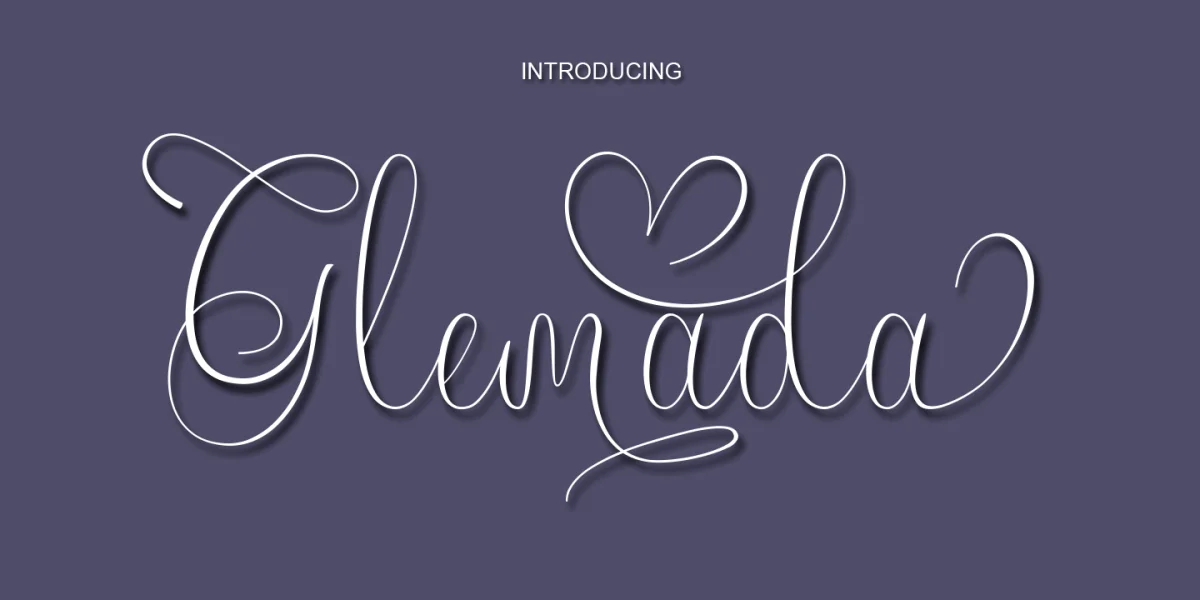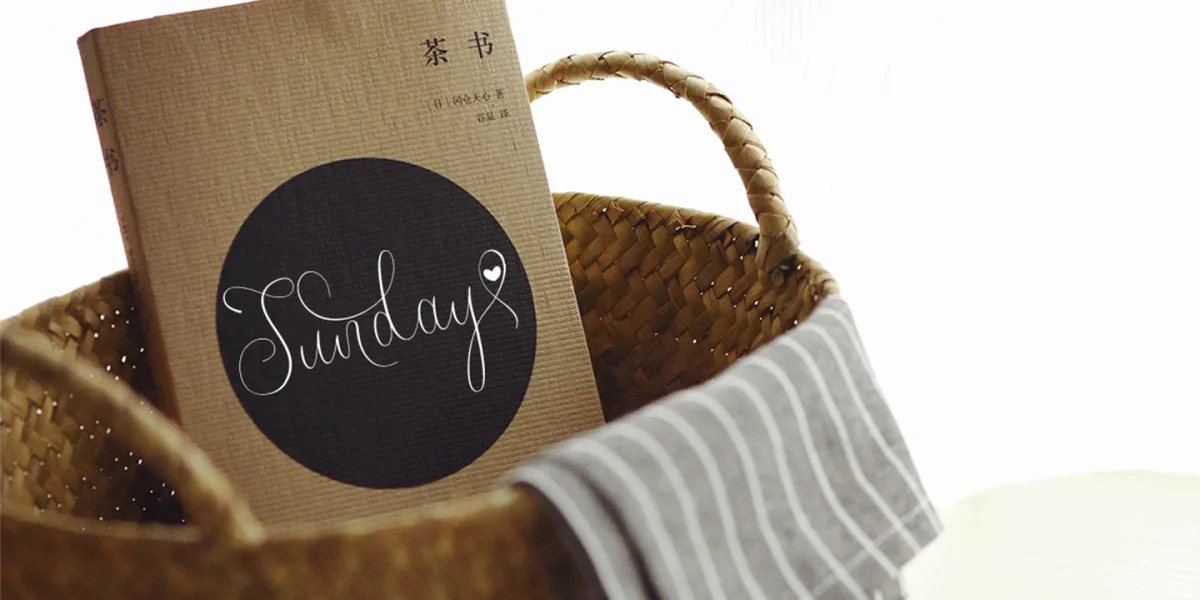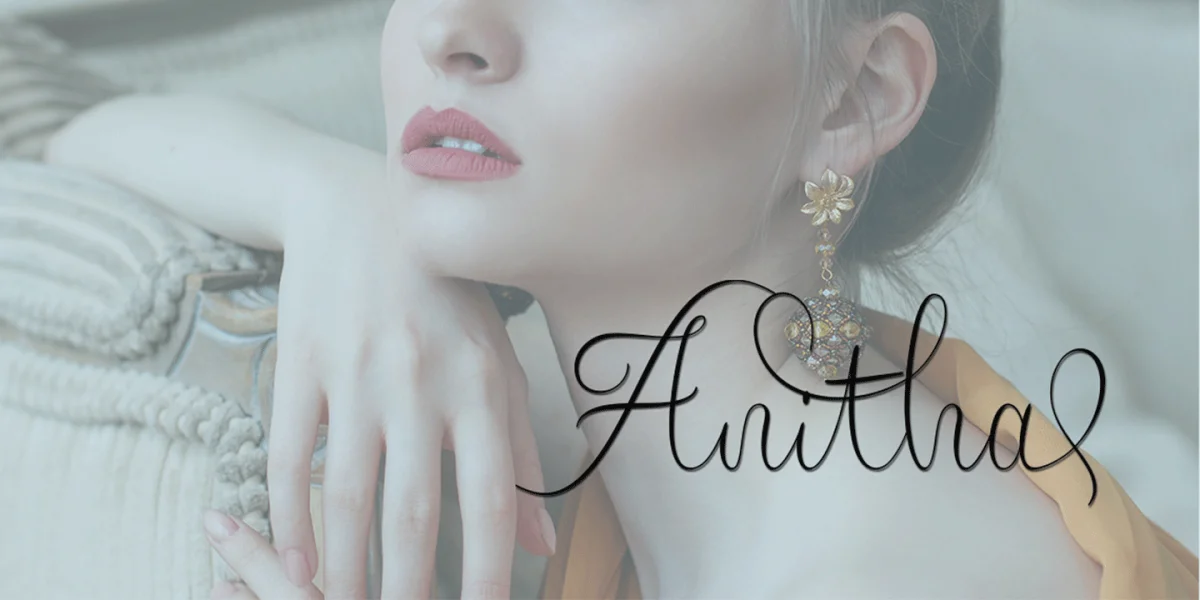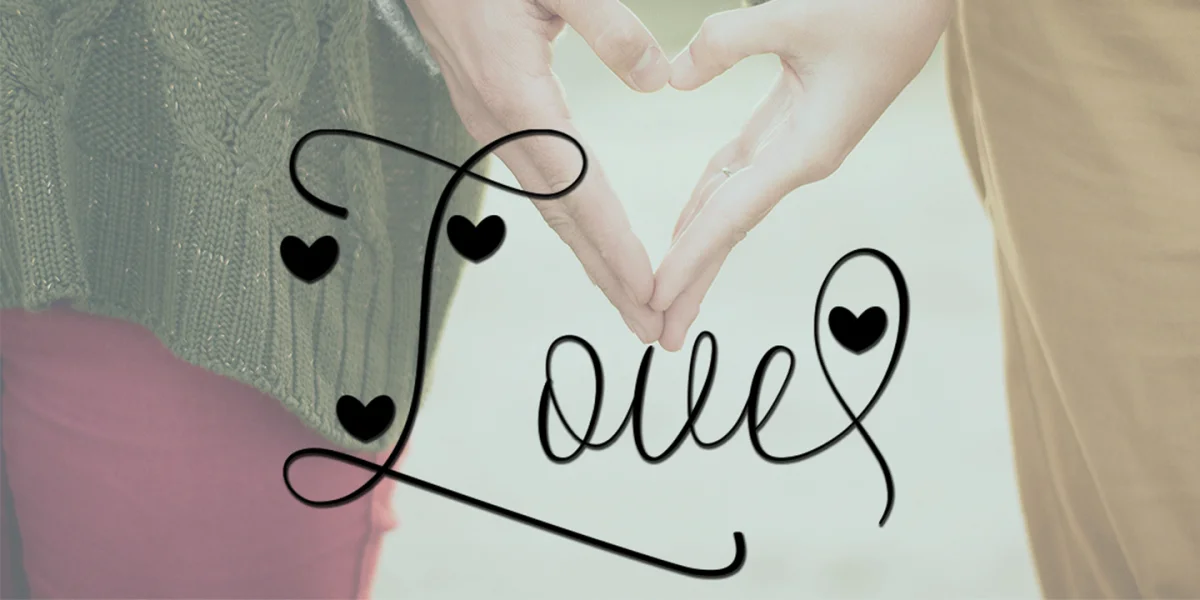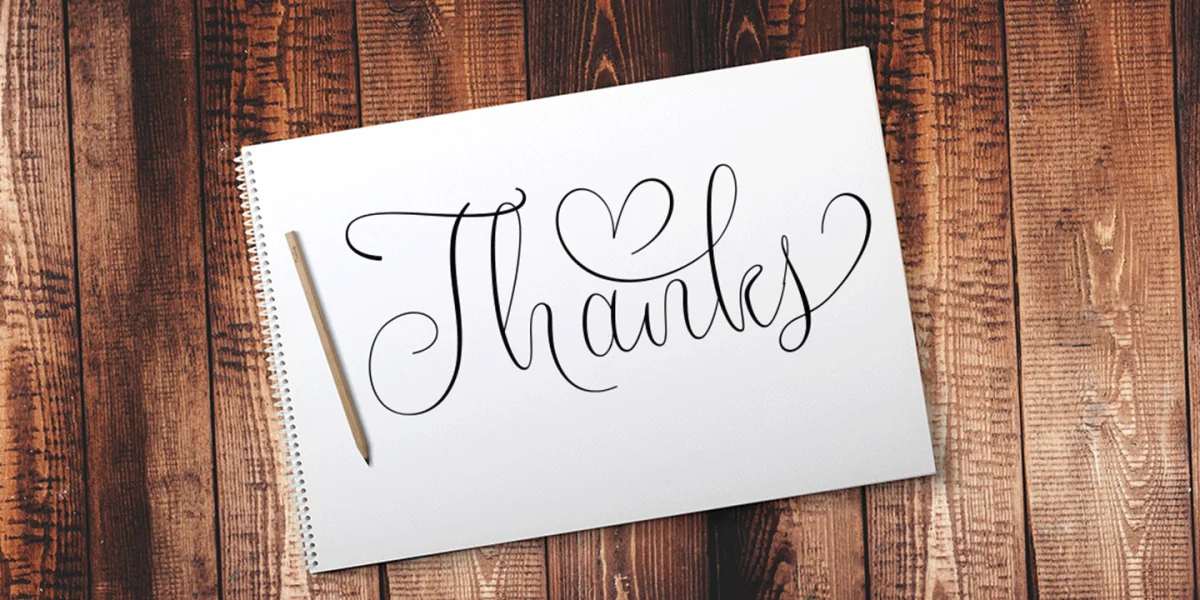
Glemada Script New fresh & modern style with handmade calligraphy, decorative characters and dancing lineage! So wonderful are invitations like greeting cards, branding material, business cards, quotes, posters, and more !!
Glemada Script comes with 660 glyphs. Alternate characters are divided into several Open Type features such as Swash, Stylistic Sets, Stylistic Alternate, Contextual Alternate. Open Type features are accessible by using Open Type savvy programs such as Adobe Illustrator, Adobe InDesign, Adobe Photoshop Corel Draw X versions, and Microsoft Word. And this font has code PUA unicode (font with special code). So that all alternative characters can be easily accessed by craftsmen or designers.